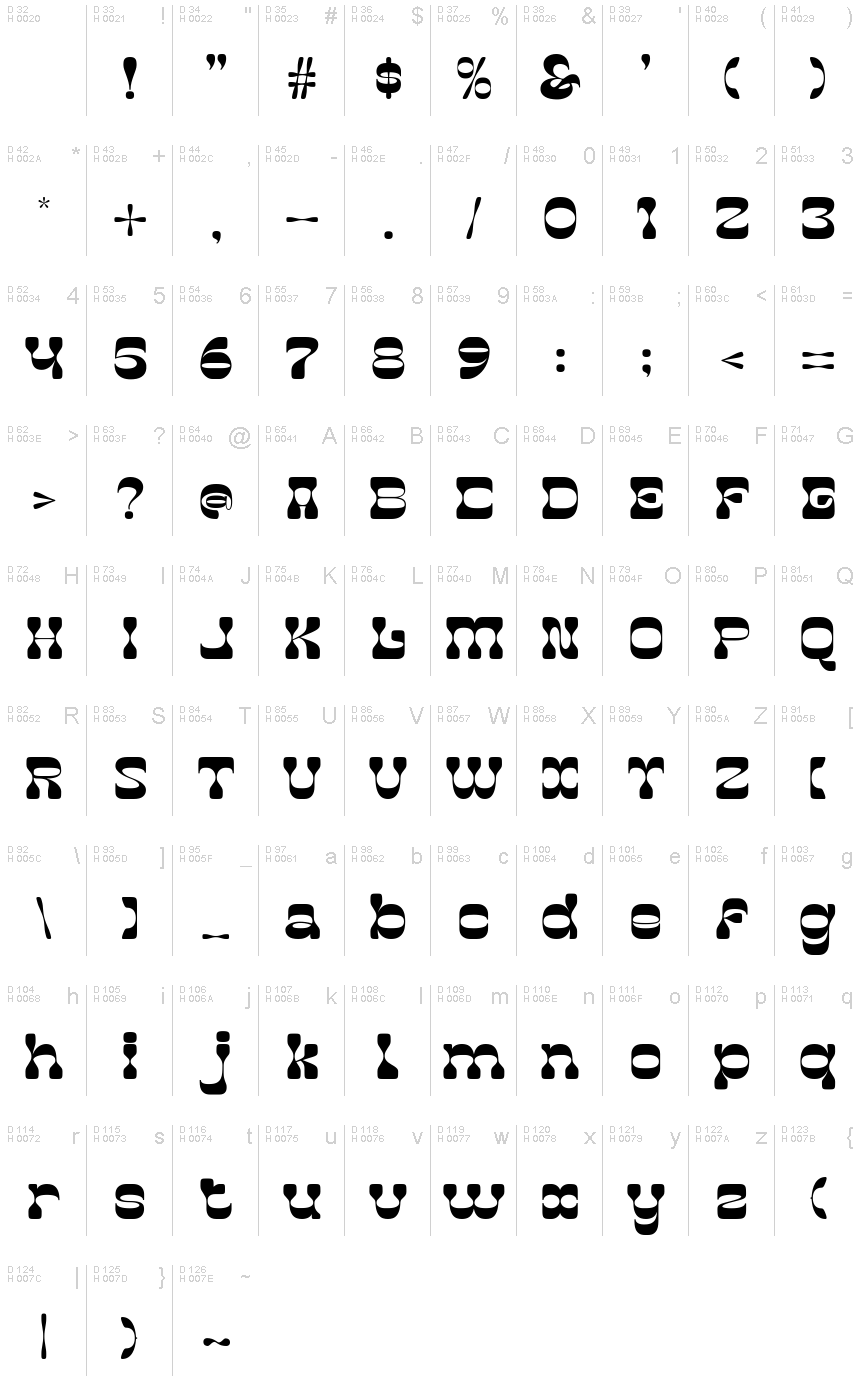
PinkponkDemo
Pinkponk, a captivating display font crafted by madeDeduk, exudes a groovy and whimsical charm. With its organic, playful shapes and unique letter forms, this font evokes a sense of retro-inspired vibrancy and free-spirited expression. The bold, yet fluid strokes and flowing curves create a dynamic and eye-catching visual presence, making Pinkponk an ideal choice for projects seeking a bold, attention-grabbing aesthetic.
Pinkponk's versatility extends beyond its captivating appearance, making it a versatile option for various design applications. From eye-catching headlines and impactful branding to playful packaging and inviting social media graphics, this font's distinctive character lends itself to projects that seek to convey a sense of energy, creativity, and individuality. Whether you're designing a retro-inspired music festival poster or crafting a vibrant social media campaign, Pinkponk's distinctive style is sure to make a lasting impression.